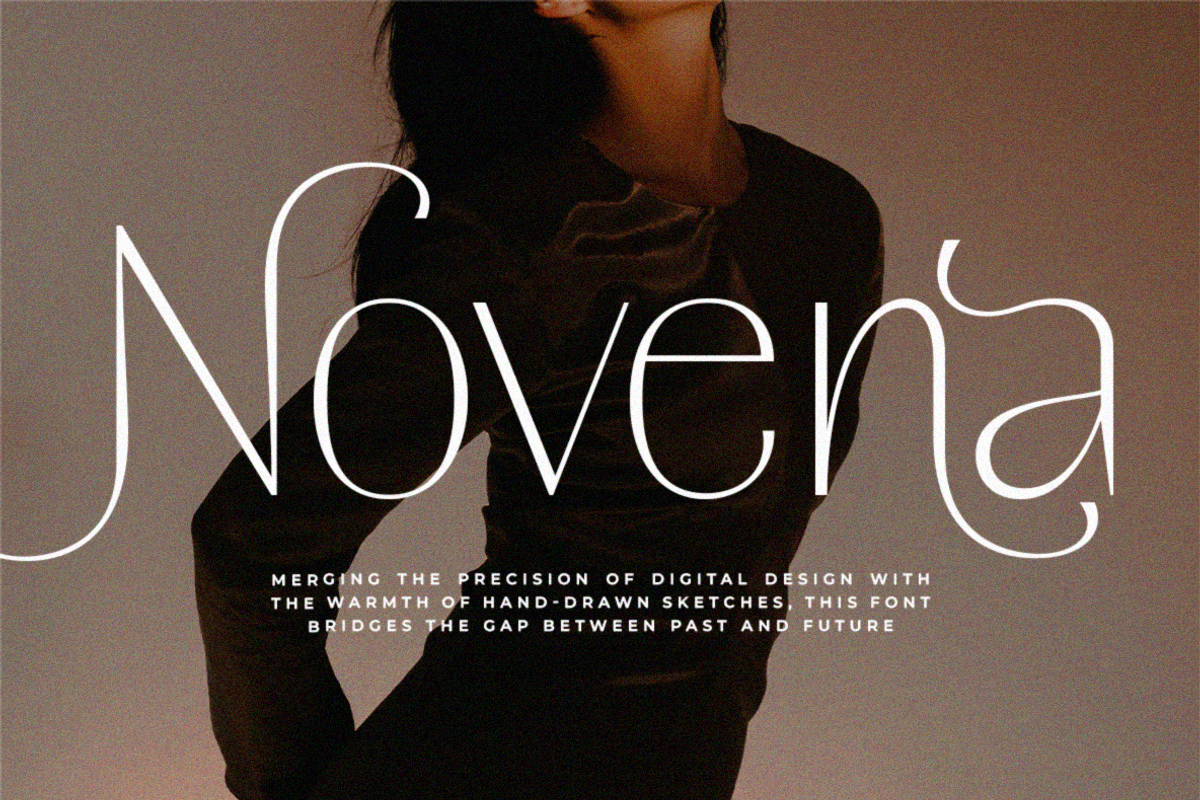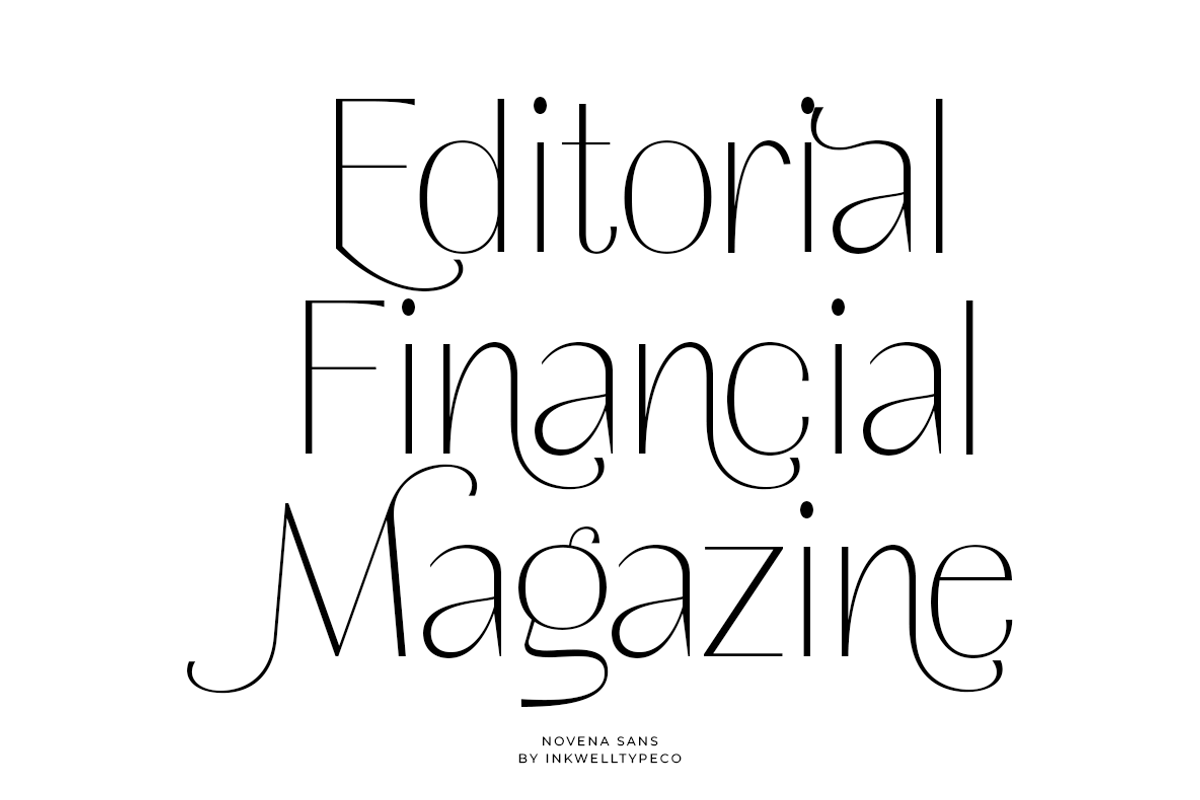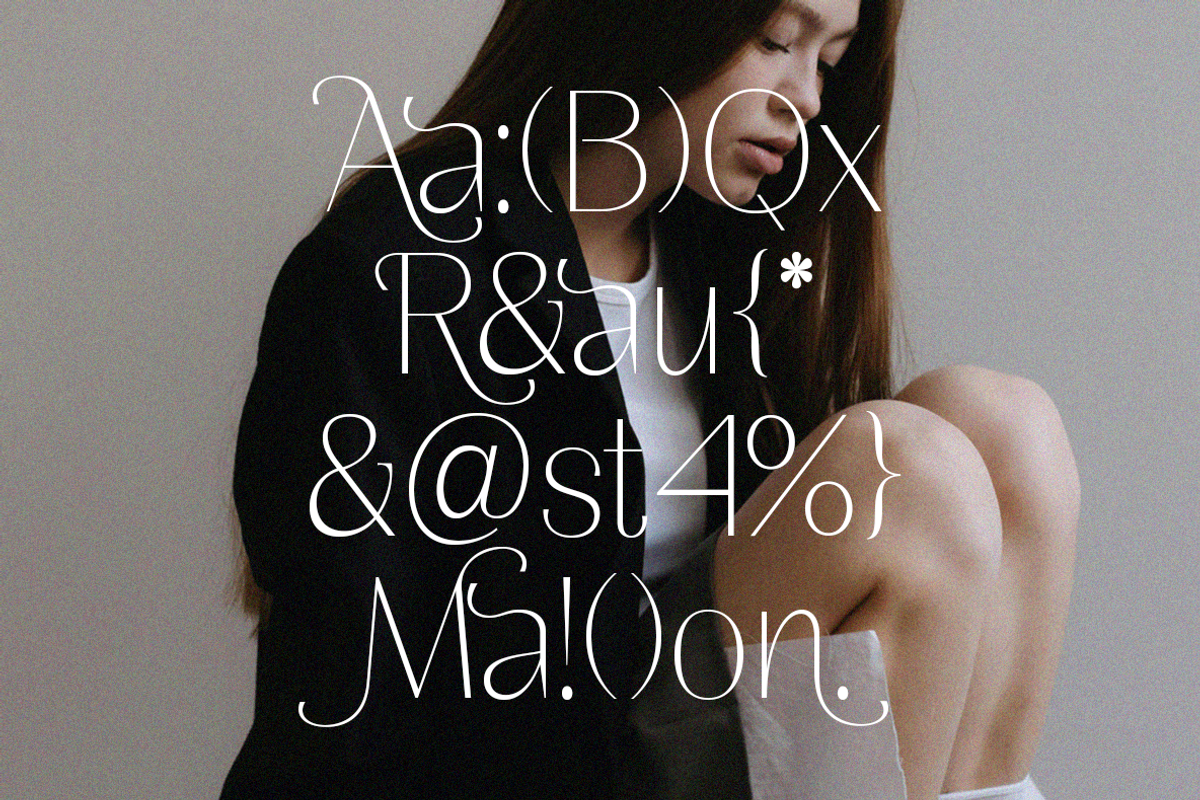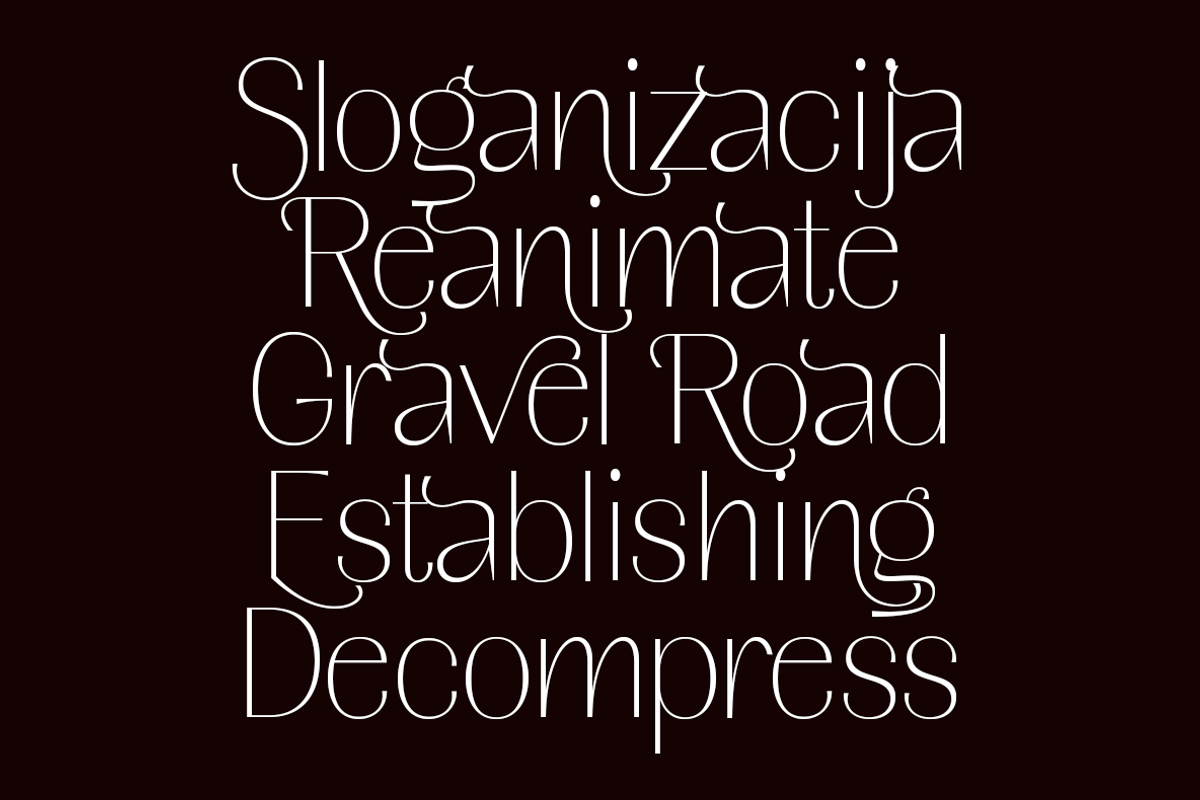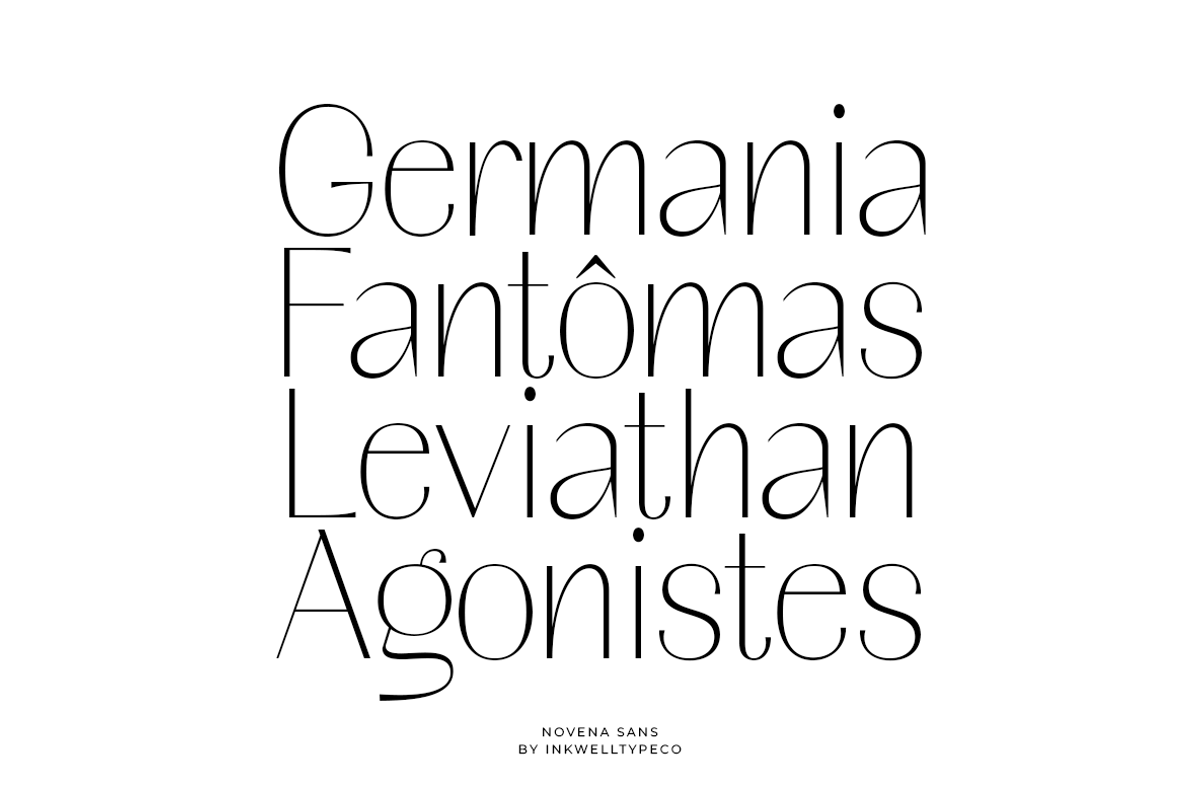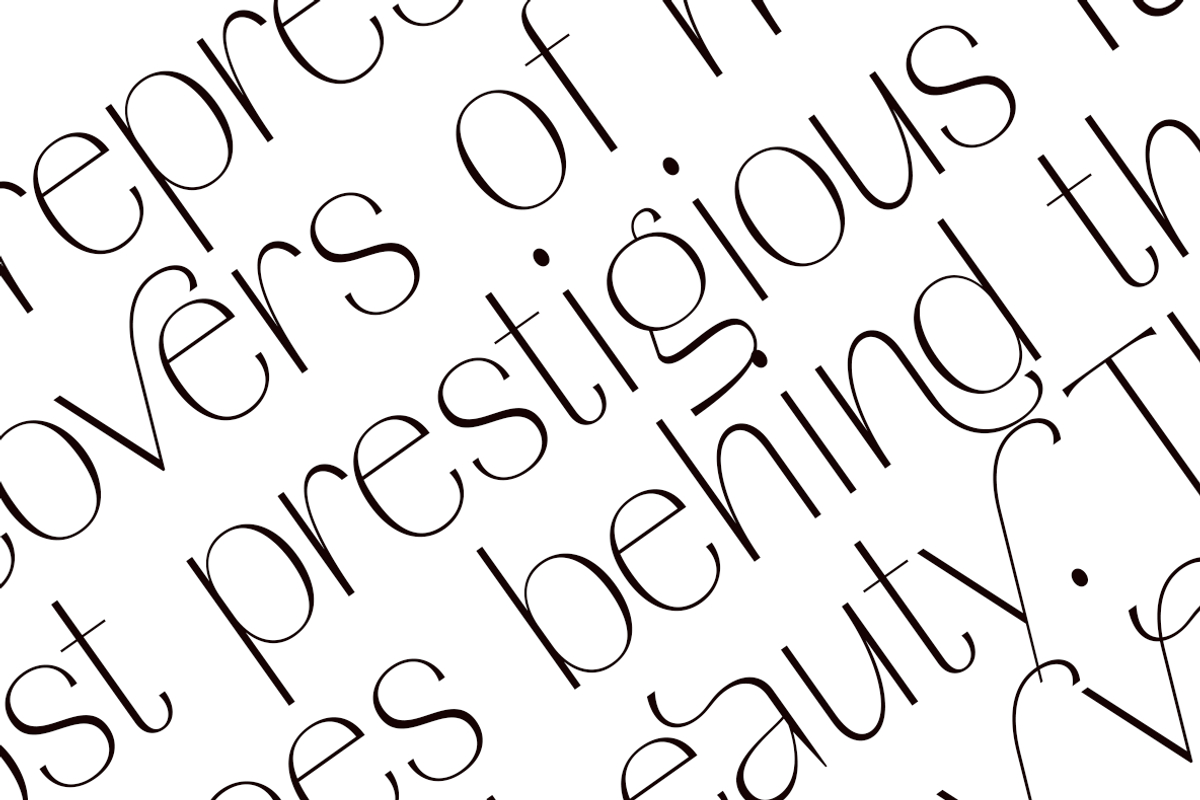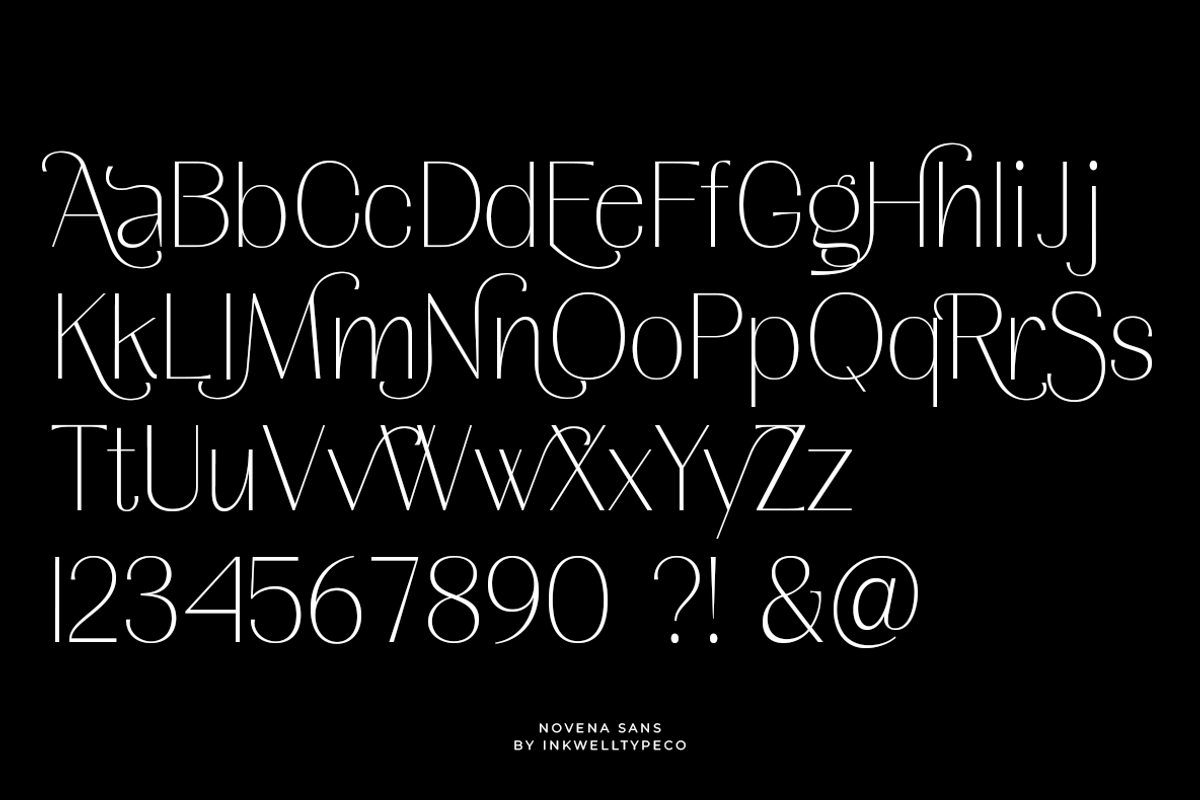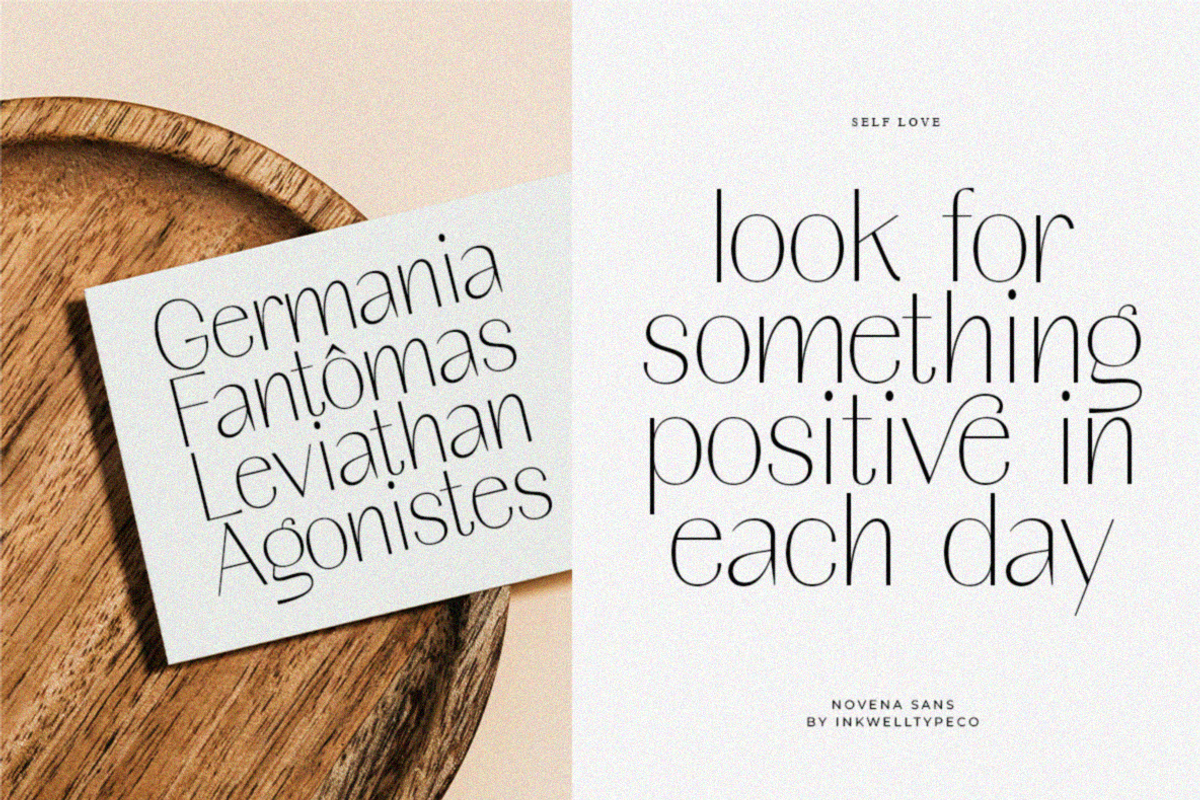
Novena | Modern Elegant
The font in the image titled “Novena” showcases a sleek, elegant, and contemporary serif style, with a unique blend of modern digital precision and hand-drawn warmth. The thin, elongated strokes give it a refined, fashion-forward look, while the subtle curves in certain letters add a touch of personality and fluidity. This typeface bridges the gap between traditional and future-forward typography, making it ideal for luxury branding, editorial designs, and sophisticated advertising campaigns. It combines both formal structure and artistic flair, giving it versatility in various high-end design contexts.